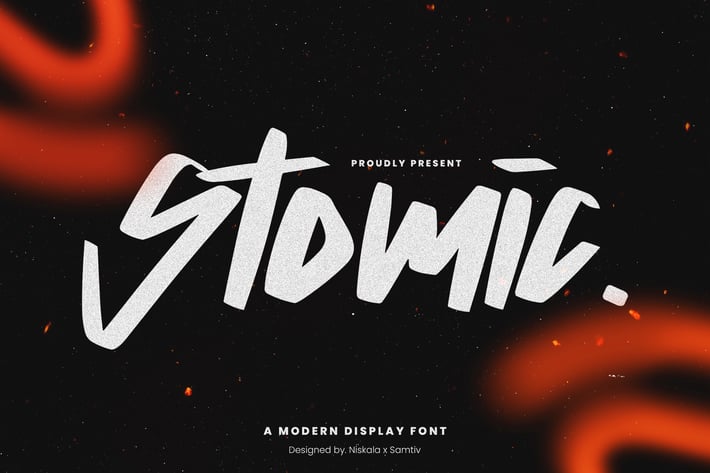
Stomic - A Modern Display Font
Stomic is an awesome with modern cutouts, and a dynamic slant. Ideal for Poster titles, menu flyer, Packaging, Logo and monograms or other modern dynamic text. Stomic compares favorably with legibility and size, creating the effect of power. Designed as a fast and dynamic font, but with a slightly different font design, check it out and grab it right away.